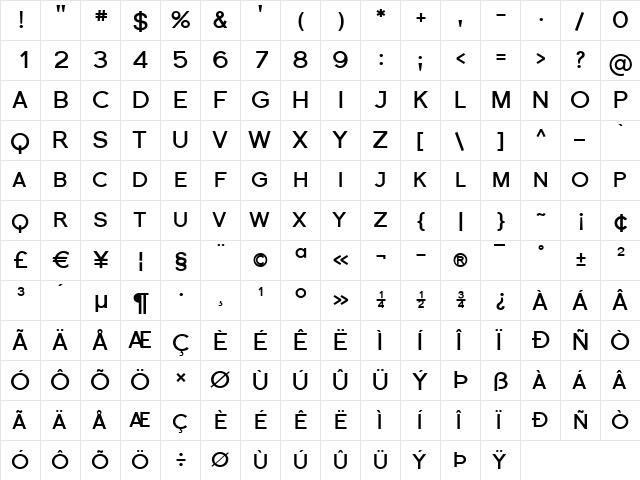
Florencesans SC Bold
Design Context for Florencesans SC Typeface
Florencesans SC takes a measured approach to typography — its balanced proportions and neutral character make it a reliable workhorse for both digital and print work. Its bold stroke weight gives it real presence on the page.